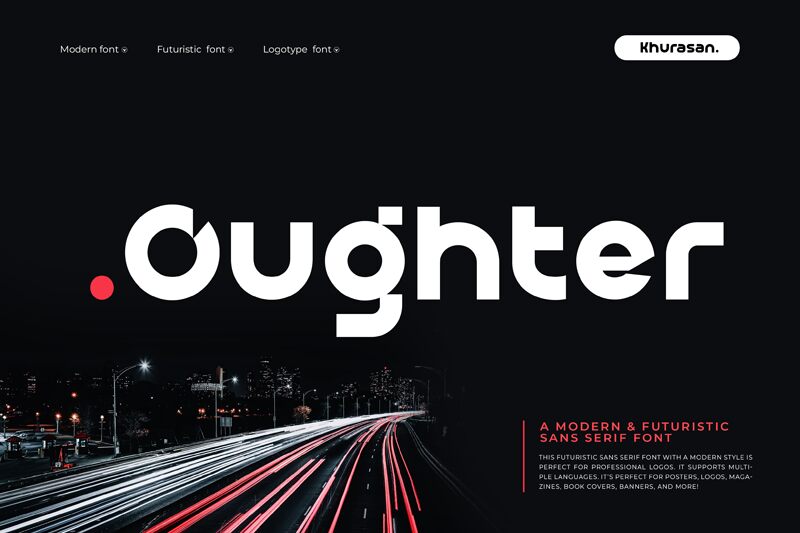
Oughter
Oughter font by Khurasan is a free modern display font. Built around chunky, rounded geometry with clever clipped terminals, it blends soft curves with decisive cuts for a clean, tech-forward vibe. The rhythm is tight and steady, with circular counters that feel smooth and engineered—like molded plastic snapped into place—making headlines read with confident, friendly impact.
Using Oughter, you’ll get standout mileage on tech branding, app splash screens, esports logos, product packaging, event posters, and sci‑fi titles. This free font excels at large sizes where its scoops and trims stay crisp. Pair it with a light, neutral sans for body copy, and keep generous letterspacing to let those rounded forms breathe.